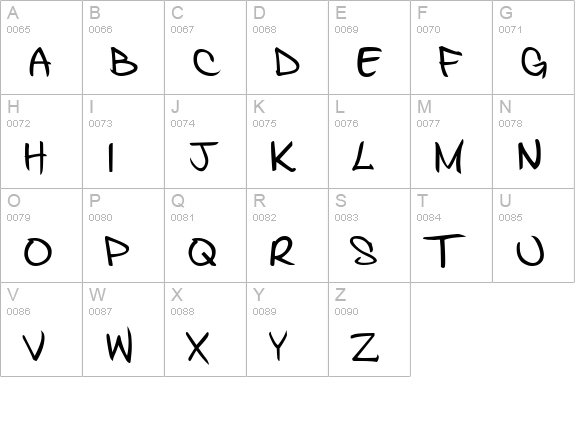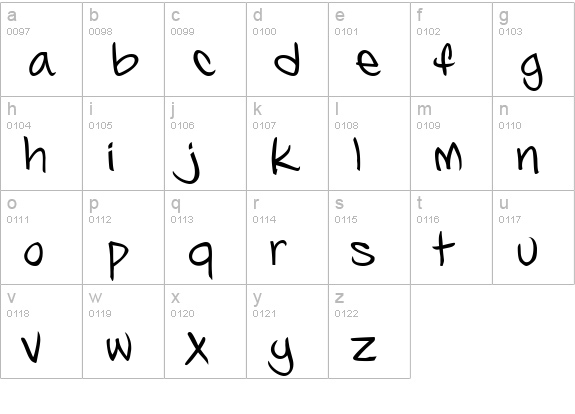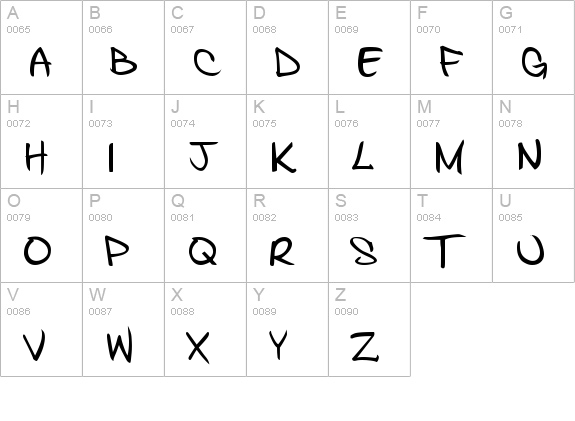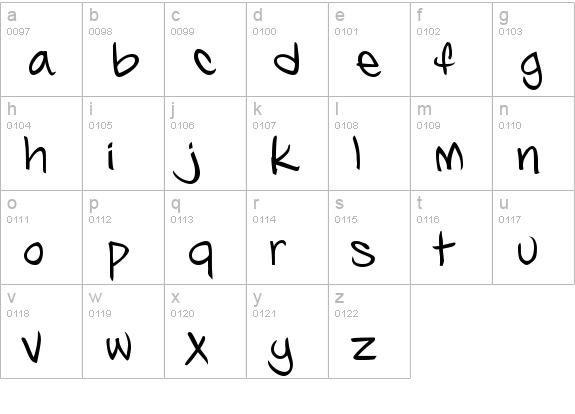
Kosal says hy Font Details
Kosal says hy font is a stunning display typeface that exudes elegance and sophistication. Its intricate details and unique design make it perfect for adding a touch of luxury to your projects. This font features a beautiful combination of sleek lines and intricate curves, creating a harmonious balance between modernity and classic charm. What's even better is that Kosal says hy font is available for free download at FontsMarket.com! This means you can easily access this exquisite font and elevate your designs without any cost. Whether you're working on branding, invitations, or any other creative project, Kosal says hy font is sure to make a lasting impression. Download it now and let your creativity shine with this exceptional typeface.